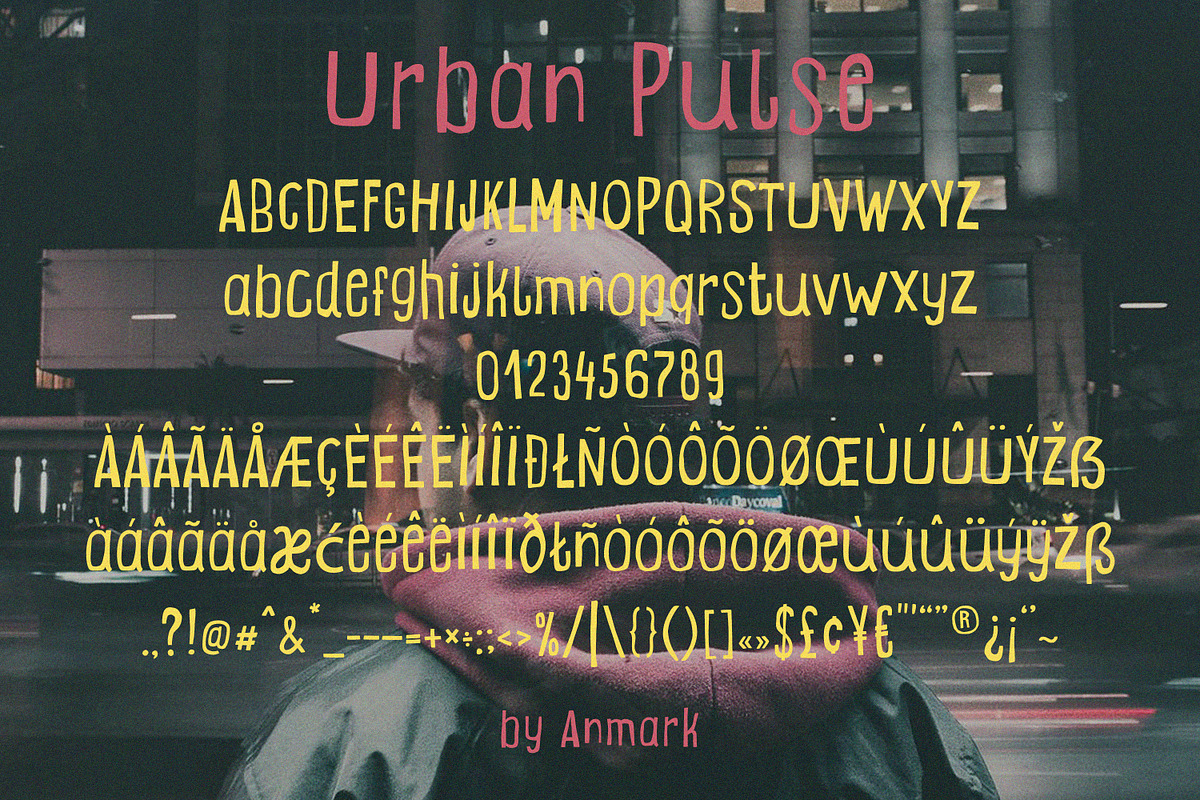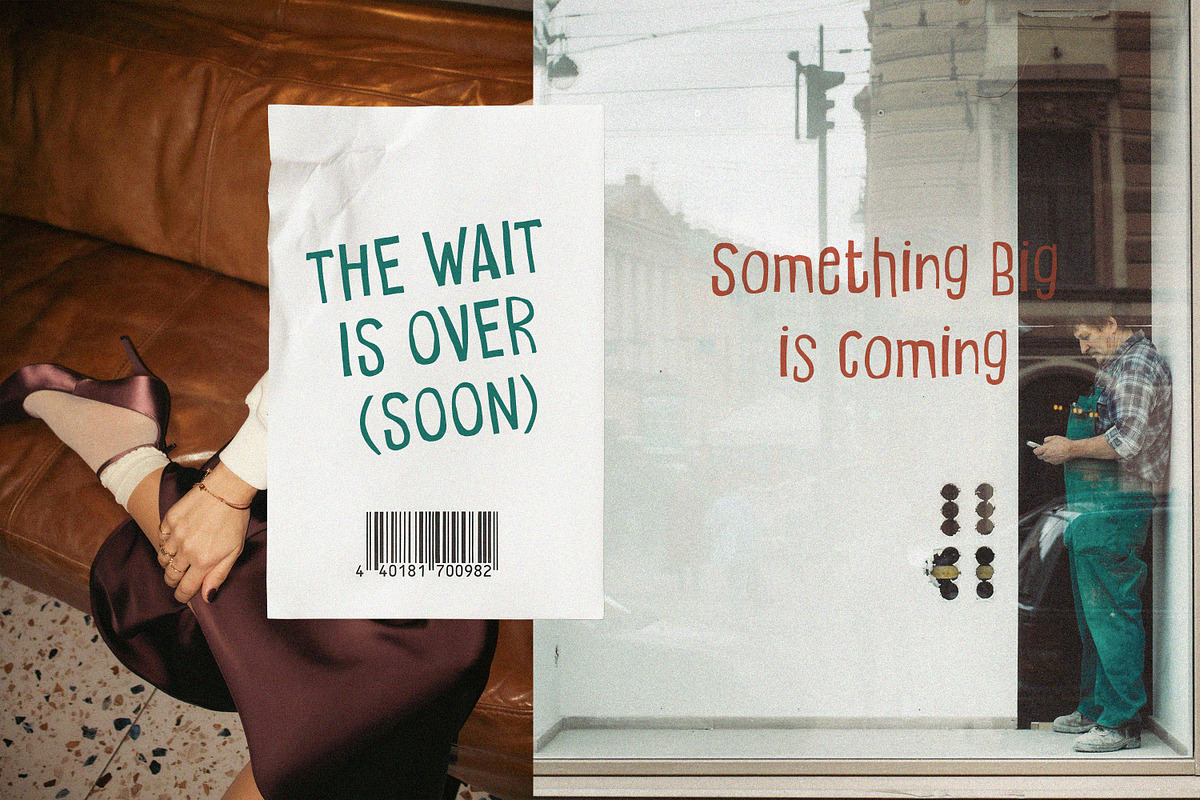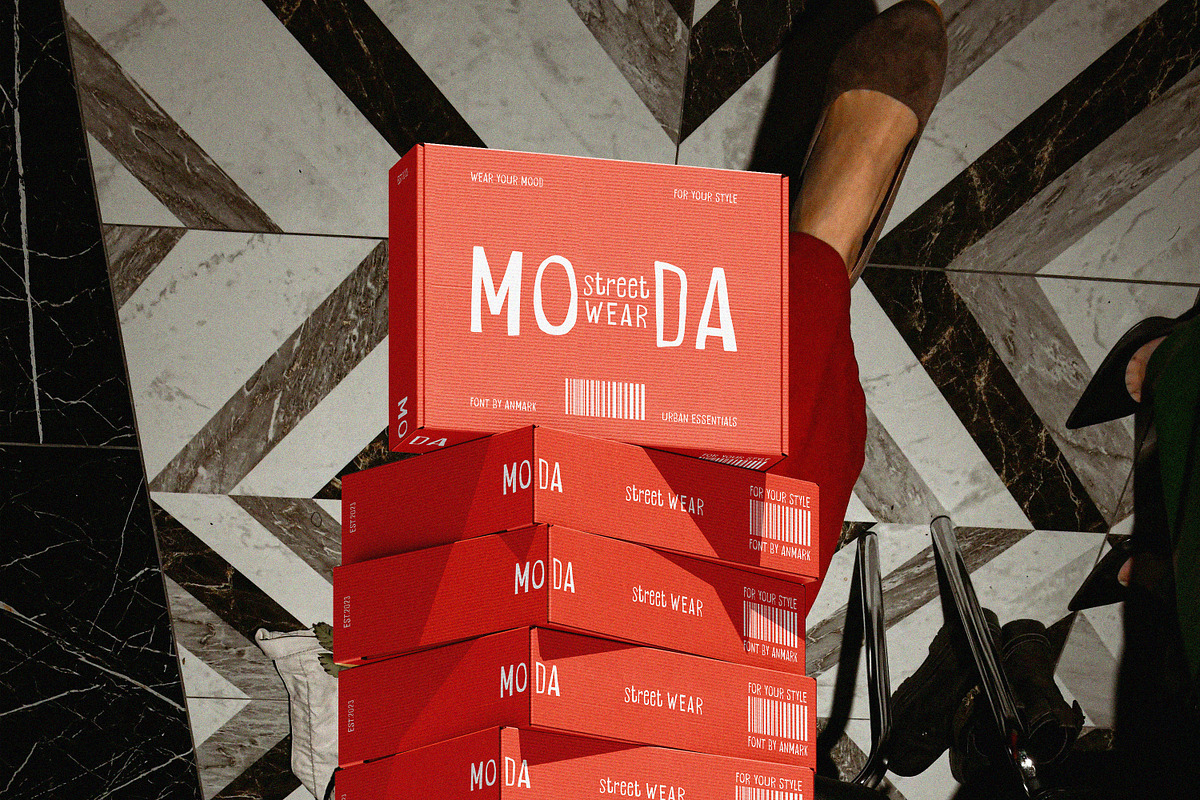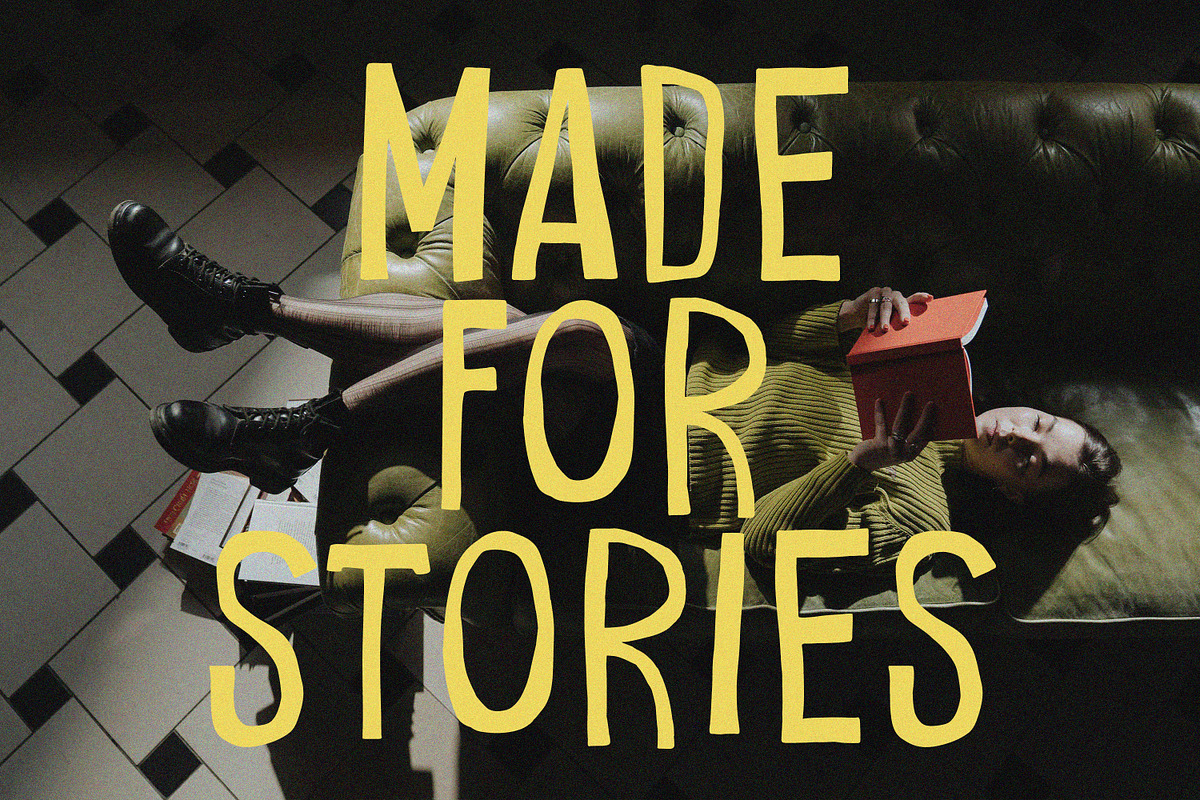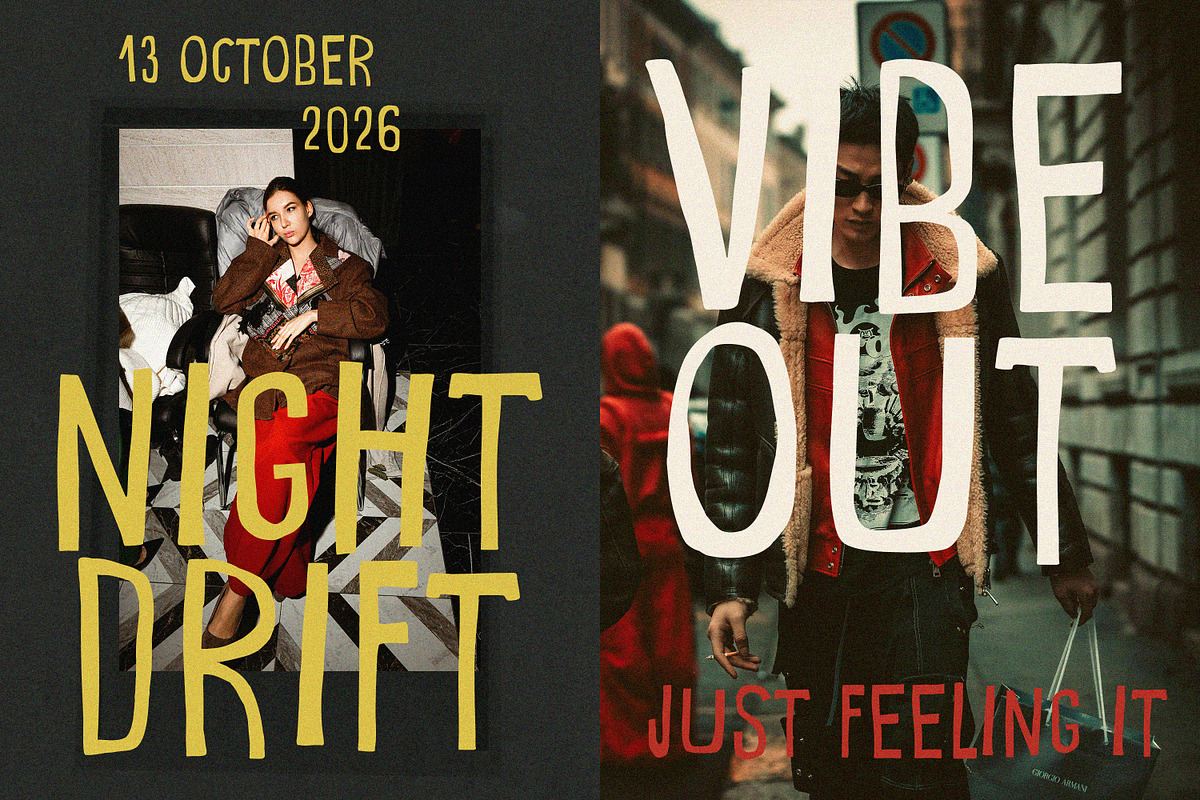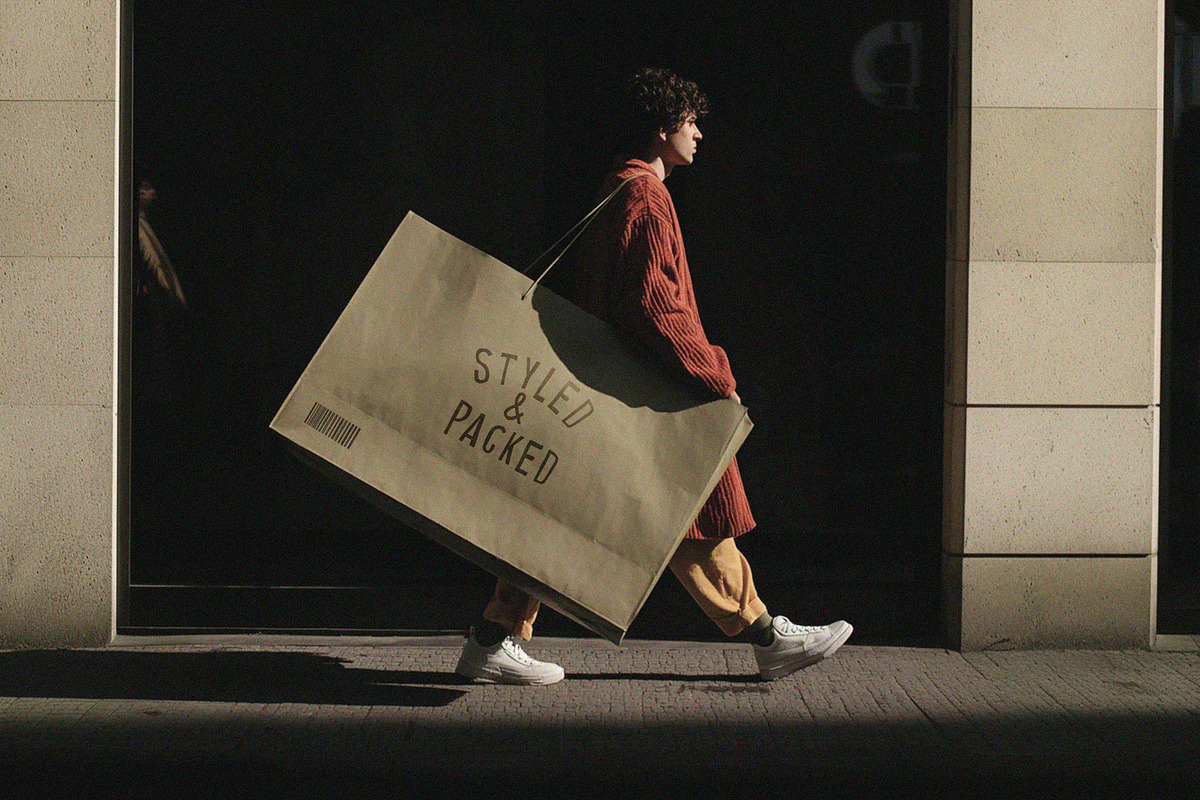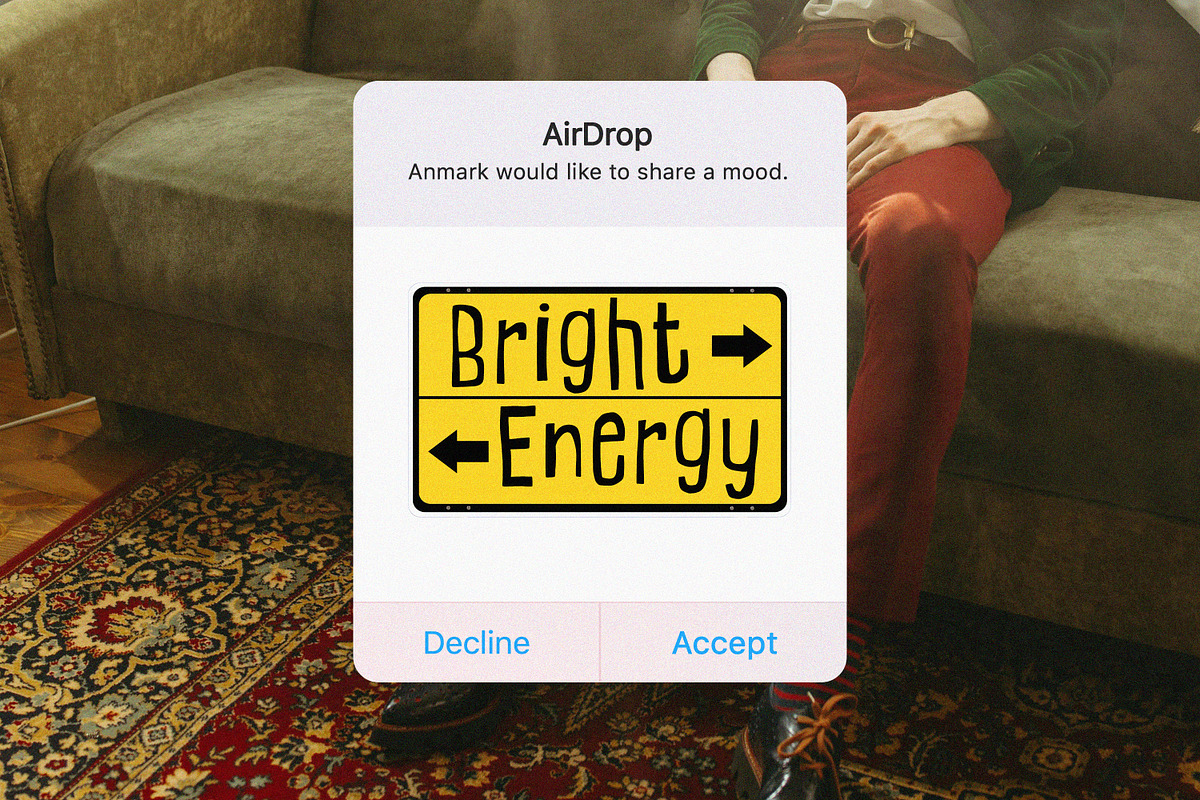
Urban Pulse: Rough and Raw Font
Urban Pulse is a bold, energetic, and stylish handwritten font that perfectly captures the essence of an urban vibe. Its slightly messy strokes and natural imperfections create a sense of movement and freedom, giving your designs a dynamic and authentic look. Perfect for fashion branding, streetwear labels, posters, social media graphics, logos, and packaging, this font adds a modern, edgy touch to any creative project.
With multilingual support, Urban Pulse allows you to design effortlessly across multiple languages while maintaining its distinctive, street-inspired style. Whether you’re creating high-impact visuals for marketing, lifestyle branding, or personal projects, Urban Pulse gives your work an instantly recognizable, contemporary, and fashion-forward personality.